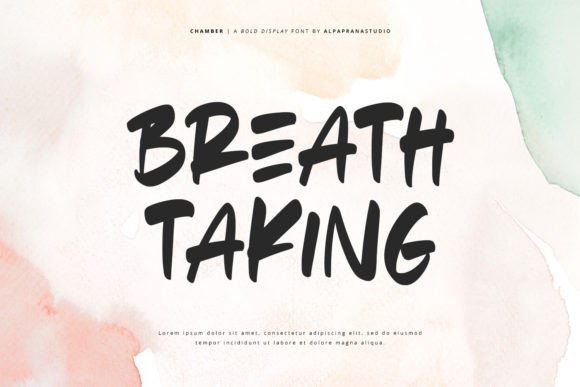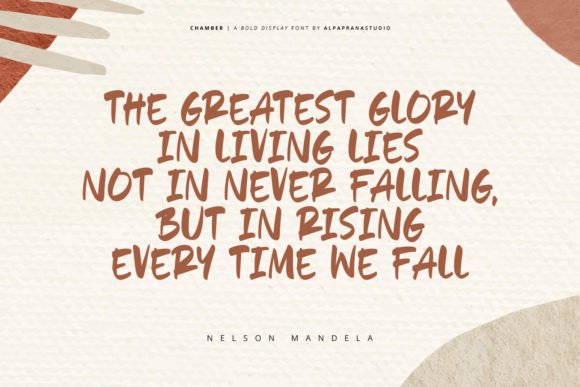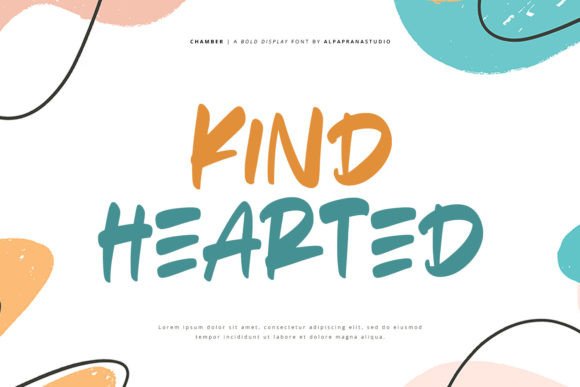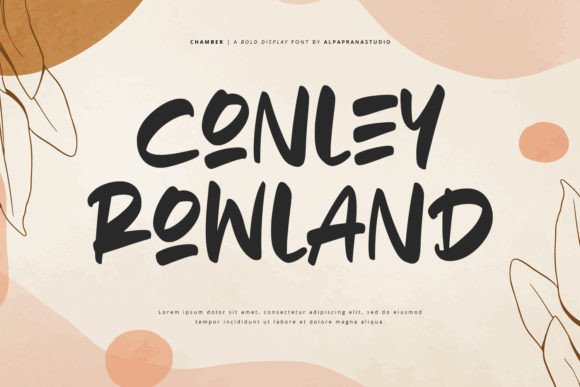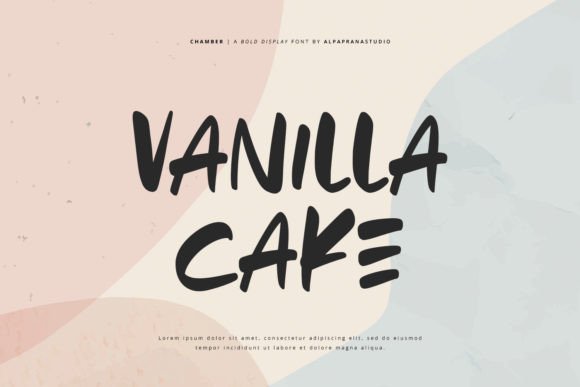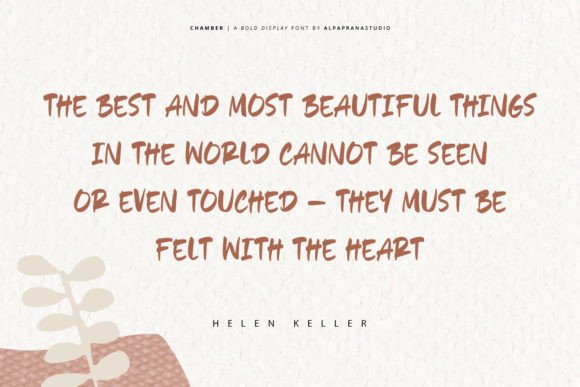
Introducing Chamber Font: The Fun and Quirky Handwritten Display Font
Are you tired of using the same old fonts for your designs and crafts? Look no further! Chamber Font is a fun and quirky handwritten display font that is sure to add a touch of personality to any project. Whether you’re a designer, crafter, or simply someone who loves to get creative, Chamber Font is the perfect addition to your font collection.
What Makes Chamber Font So Special?
Chamber Font is a unique and eye-catching font that is perfect for a variety of projects. Its handwritten style gives it a personal and informal feel, making it ideal for crafts, digital design, presentations, and even making greeting cards. The font’s quirky and playful vibe is sure to make your projects stand out from the crowd.
Uses for Chamber Font
Chamber Font is a versatile font that can be used for a wide range of projects. Here are just a few ideas to get you started:
- Crafts: Use Chamber Font to add a personal touch to your scrapbooking, journaling, and other paper crafts.
- Digital Design: Chamber Font is perfect for adding a playful touch to your digital designs, such as social media graphics, blog posts, and website headers.
- Presentations: Add some personality to your presentations with Chamber Font. It’s a great way to make your slides stand out and engage your audience.
- Greeting Cards: Use Chamber Font to create unique and personalized greeting cards for any occasion.
Why You’ll Love Chamber Font
So, why will you love Chamber Font? Here are just a few reasons:
- Easy to Read: Despite its playful style, Chamber Font is easy to read, making it perfect for both digital and print projects.
- Highly Versatile: Chamber Font can be used for a wide range of projects, from formal to informal.
- Unique Style: Chamber Font has a unique and quirky style that is sure to make your projects stand out.
Tips for Using Chamber Font
Here are a few tips for getting the most out of Chamber Font:
- Use it Sparingly: Chamber Font is a bold font, so use it sparingly to add emphasis to your projects.
- Pair it with Other Fonts: Chamber Font pairs well with other fonts, so don’t be afraid to experiment with different combinations.
- Experiment with Colors: Chamber Font looks great in a variety of colors, so don’t be afraid to experiment and find the perfect color for your project.
In conclusion, Chamber Font is a fun and quirky handwritten display font that is perfect for designers, crafters, and anyone who loves to get creative. Its unique style and versatility make it a great addition to any font collection. Whether you’re using it for crafts, digital design, presentations, or making greeting cards, Chamber Font is sure to become your go-to font for any occasion.
Get Creative with Chamber Font!